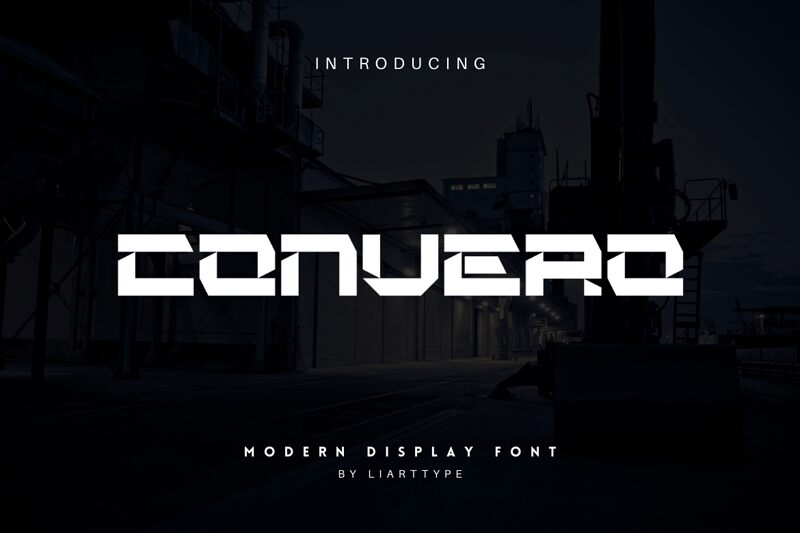
Convero, the bold and futuristic display font crafted by Sifak Muf of Liartgraphic, commands attention with its striking expanded form. This captivating typeface exudes a sense of technological prowess, seamlessly blending modern aesthetics with a touch of industrial flair. Its bold, geometric letterforms convey a sense of strength and confidence, making it an ideal choice for diverse design projects.
Convero's versatility shines through, lending itself beautifully to packaging designs, logos, magazines, landing pages, and flyers. Its expansive width and robust character lend a sense of dynamism and visual impact, making it a stand-out choice for attention-grabbing designs. Whether you're crafting a cutting-edge product brand or designing a sleek, tech-forward publication, Convero's transformative power is sure to elevate your project to new heights.